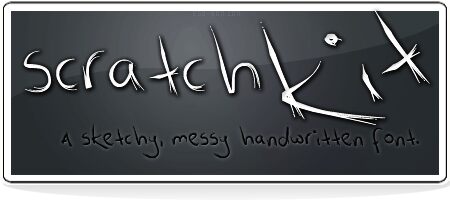
Scratch Kit from Ego-box is a free scratchy handwritten display font with wiry strokes, dramatic changes in width, and an uneasy improvised edge. Its letters are loosely drawn, sharply tapered, and unevenly spaced.
Themes of underground music and unruly youth culture suit its restless linework, making it useful for gig posters and album artwork. Fashion merchandise and independent event graphics can use the lettering as a hand-scrawled mark that feels closer to ink on paper than polished typography. In magazine design, the irregular strokes can turn a cover line into part of the illustration rather than a neutral caption.